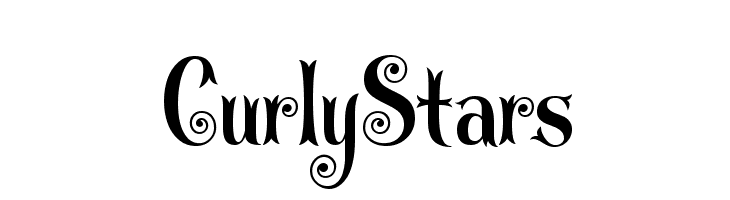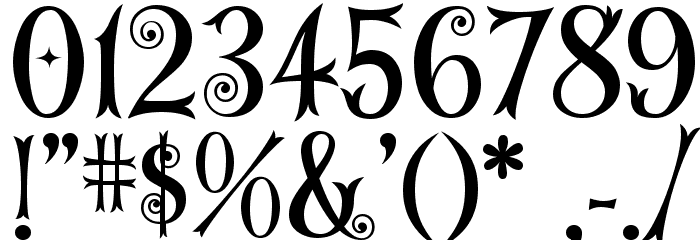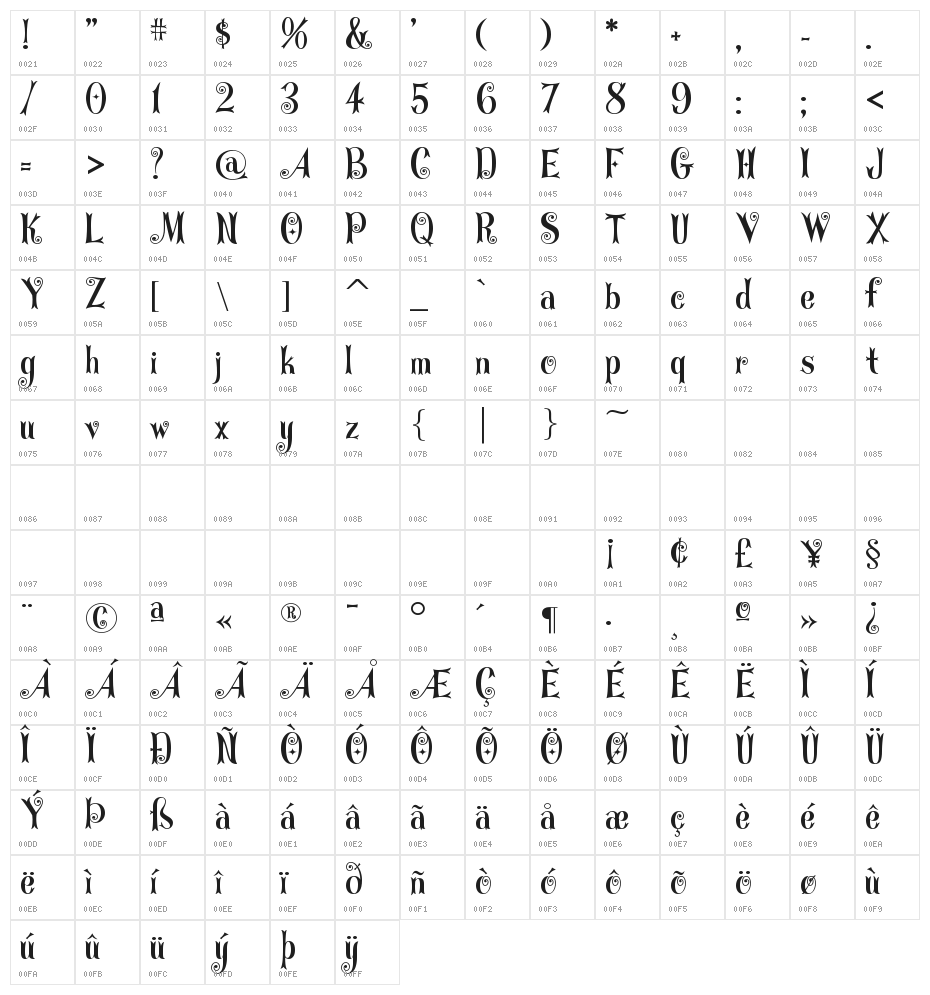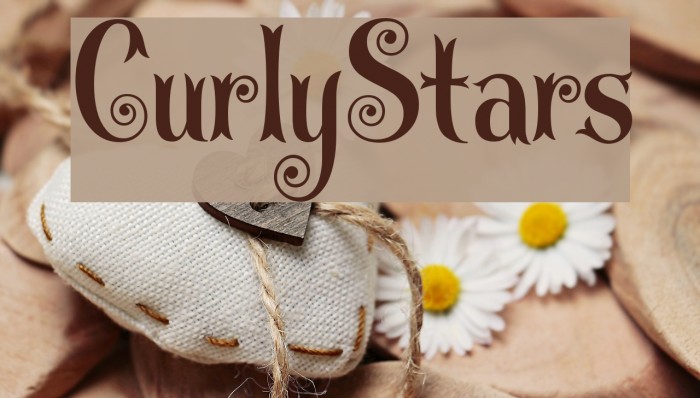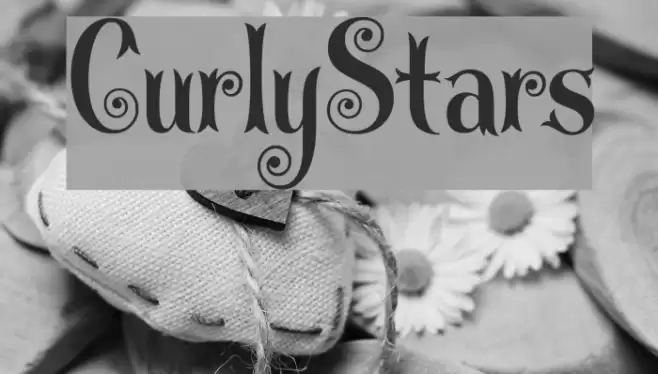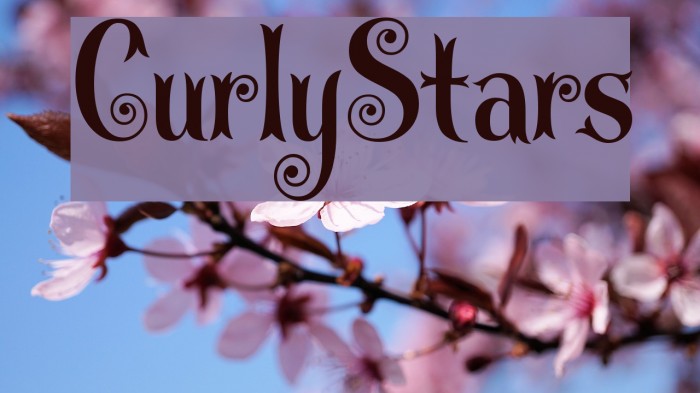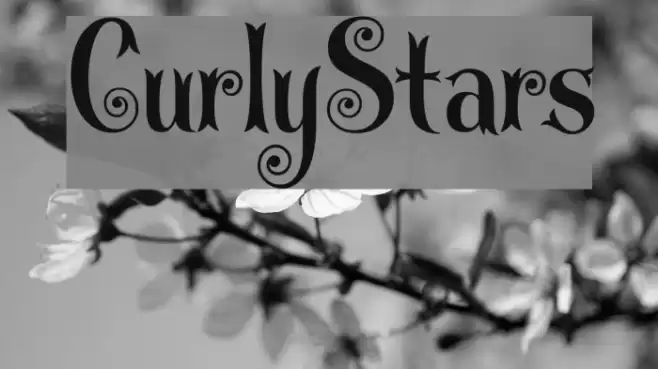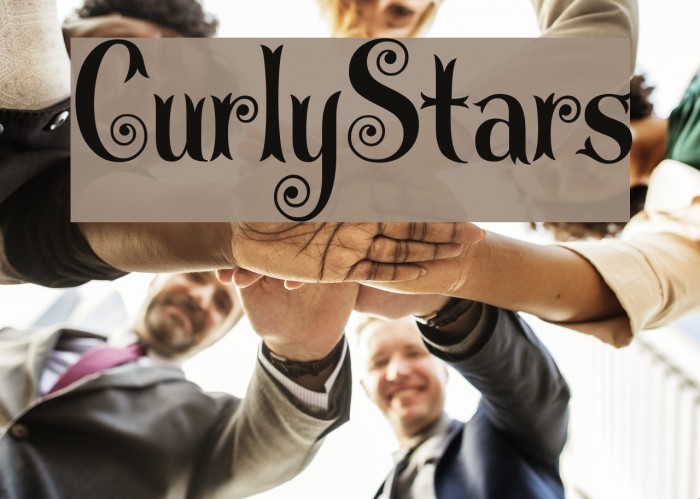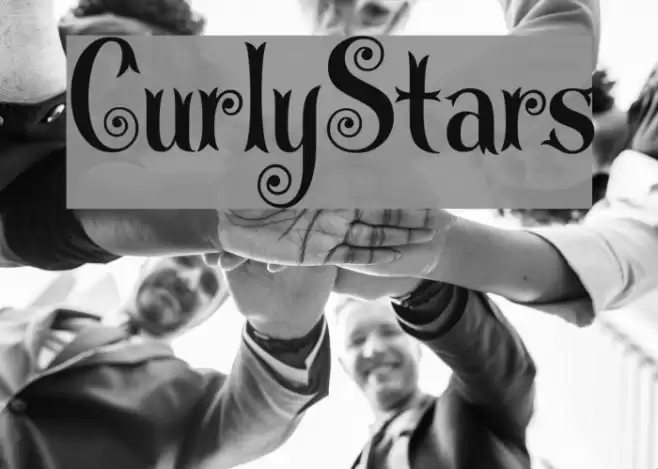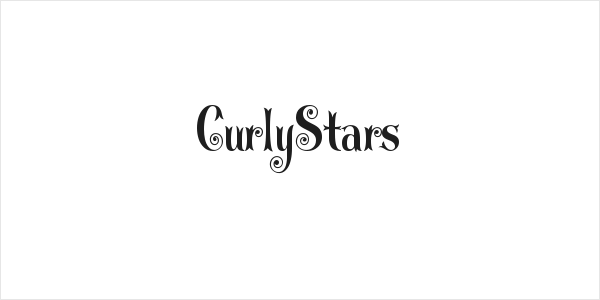
CurlyStars Font
CurlyStars Description
This font features a whimsical and decorative style, characterized by its playful curls and swirls integrated into each character. The uppercase letters are bold and eye-catching, with intricate spiral designs that add a touch of elegance and fantasy. The lowercase letters maintain a consistent style, with some characters featuring unique embellishments that enhance their visual appeal. The numerals are equally stylized, with certain numbers incorporating star-like shapes that complement the overall theme. Special characters are designed with similar flair, ensuring a cohesive look across all glyphs. This font is perfect for projects that require a touch of creativity and charm.